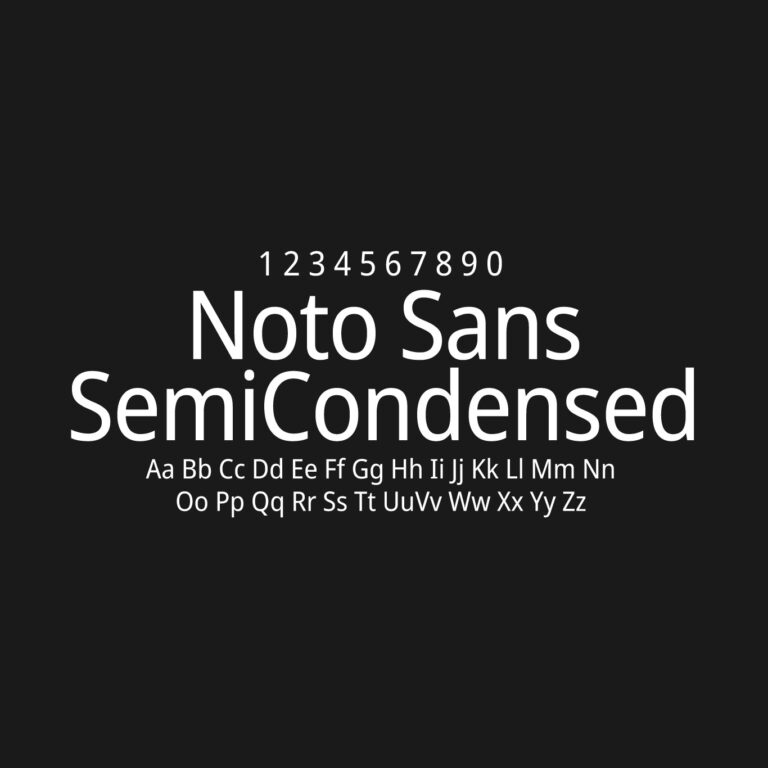
Noto Sans SemiCondensed is a slightly narrower version of Noto Sans, designed for readable typography in layouts that need better space efficiency without becoming too compressed. It has clean letterforms, balanced spacing and strong digital readability, making it useful for websites, app interfaces, dashboards, documentation, navigation systems, editorial layouts, presentations and multilingual design projects.
Designer: Google